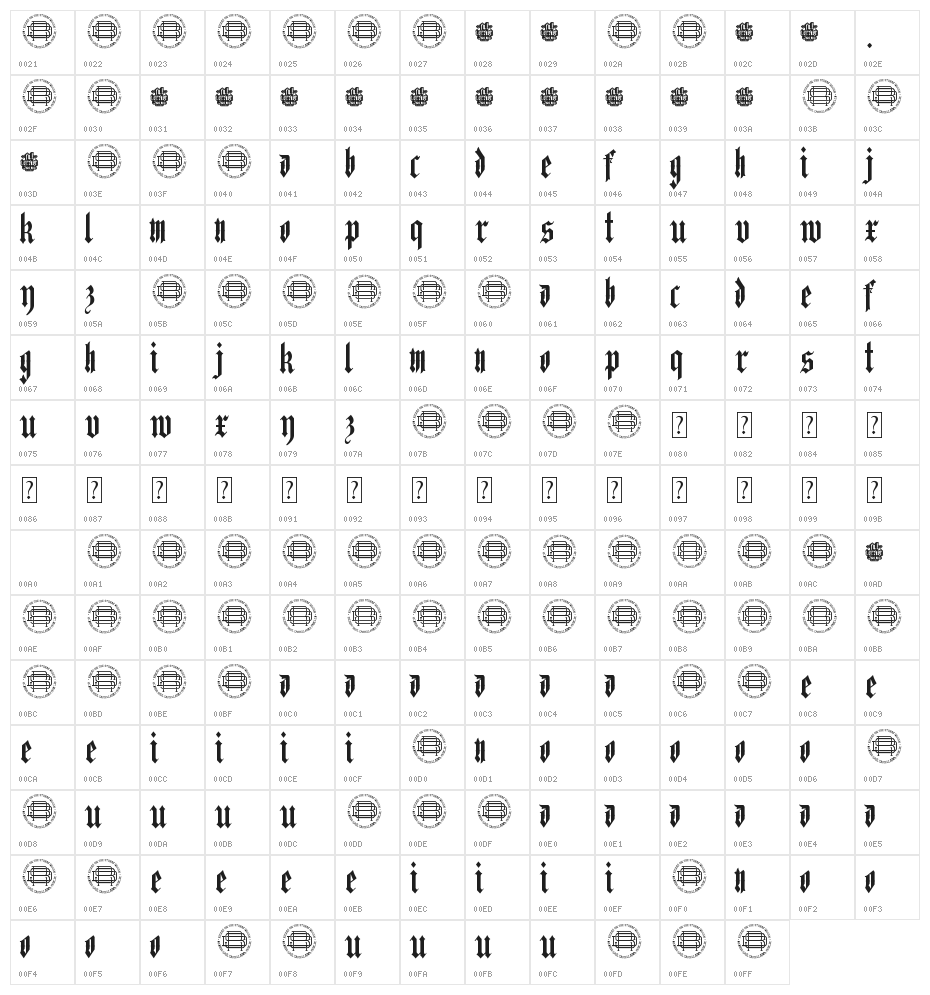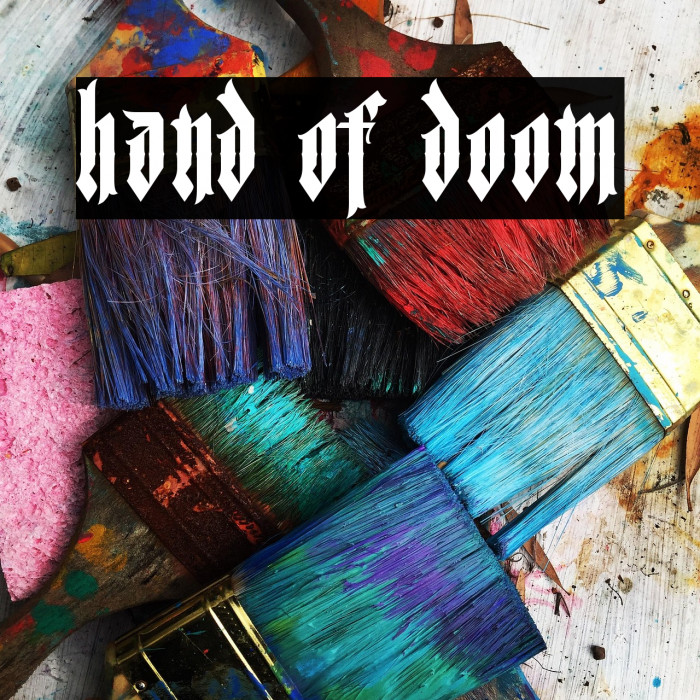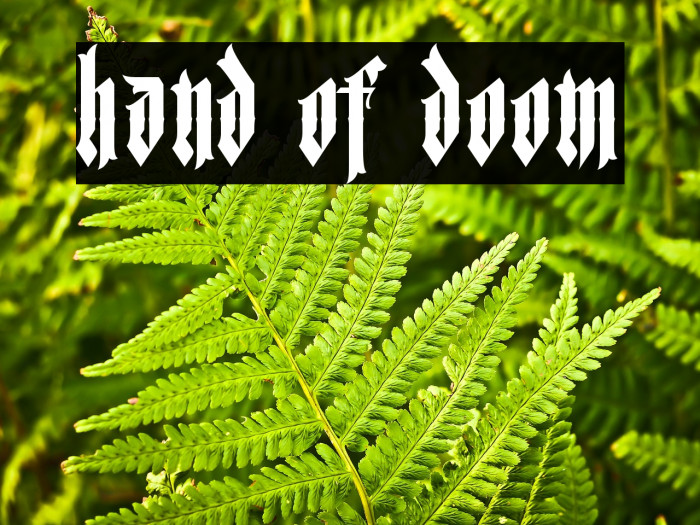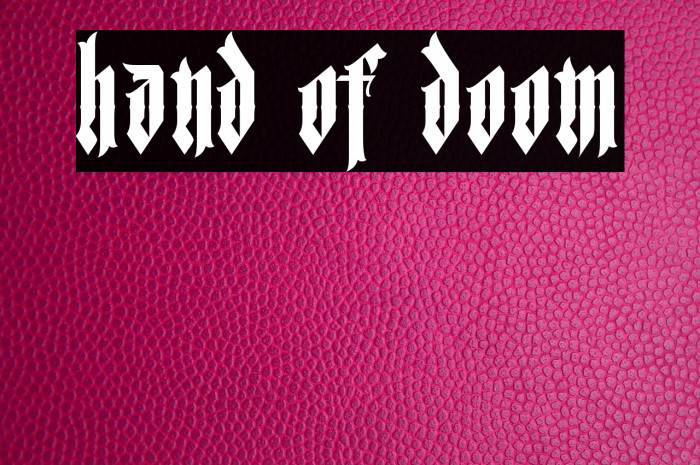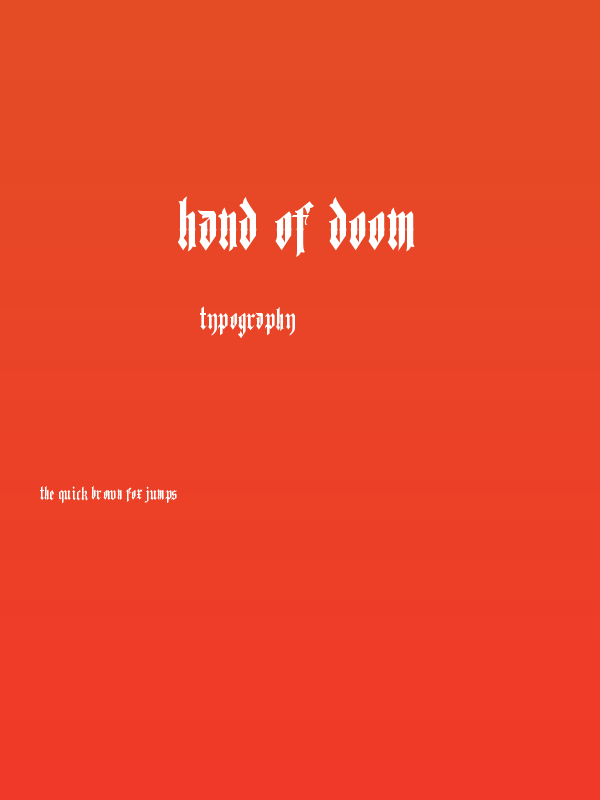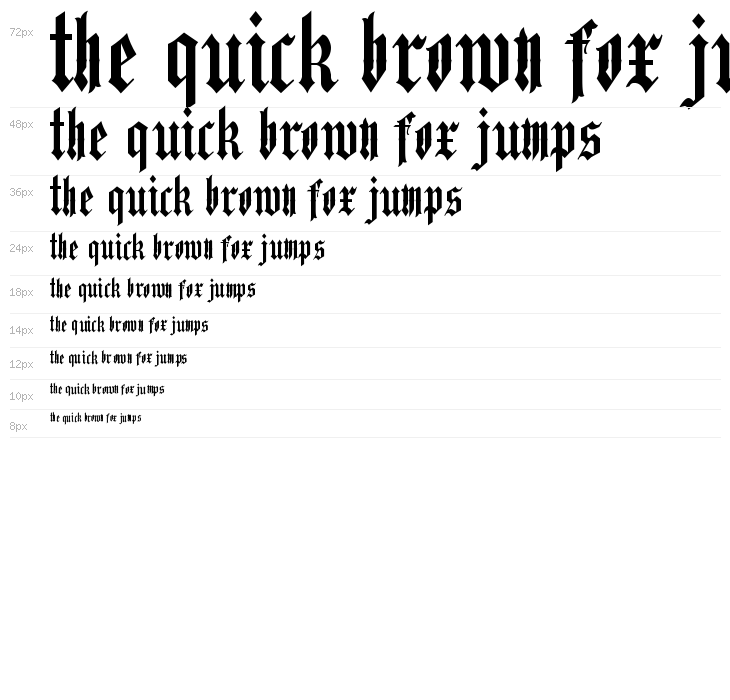
Hand of Doom Font
Hand of Doom Description
This font features a bold and dramatic blackletter style, reminiscent of traditional Gothic script. The characters are sharply angular with pronounced serifs and a high degree of contrast between thick and thin strokes. The overall appearance is ornate and decorative, making it suitable for projects that require a historical or medieval aesthetic. The uppercase and lowercase letters maintain a consistent style, with intricate detailing that adds to the font's visual impact. The spacing between characters is relatively tight, enhancing the compact and cohesive look of the text.
| Proposed Projects | Ideal for use in branding, logos, posters, and any design that seeks a medieval or historical theme. |